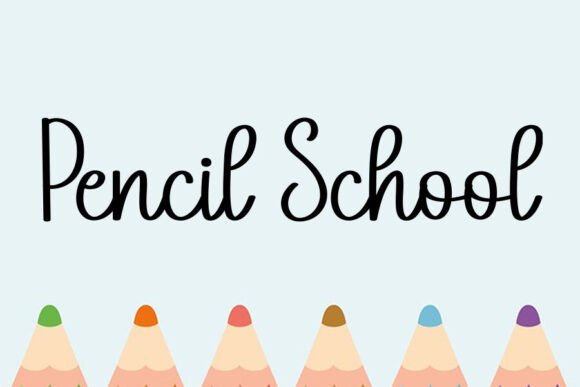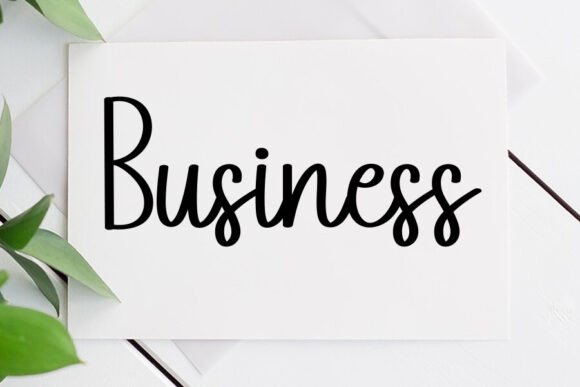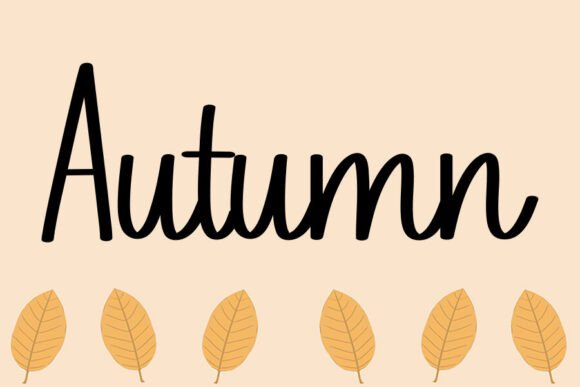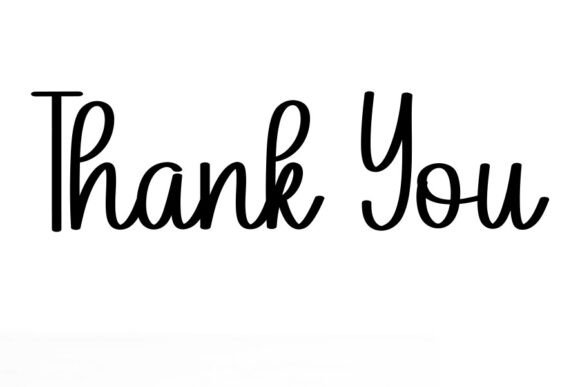
Cowgirls Font: The Sweet and Cursive Handwritten Font for Your Design Needs
Are you looking for a font that can add a touch of elegance and romance to your designs? Look no further than Cowgirls Font, a sweet and cursive handwritten font that is perfect for a variety of design projects. In this article, we’ll take a closer look at the features and benefits of Cowgirls Font, and explore how you can use it to elevate your designs.
What is Cowgirls Font?
Cowgirls Font is a beautiful, handwritten font that is characterized by its flowing and cursive lines. This font is designed to be elegant and refined, yet still casual and approachable. It’s the perfect choice for designers who want to add a touch of sophistication to their work, without sacrificing a personal and human touch.
Features of Cowgirls Font
Cowgirls Font has a number of features that make it an excellent choice for designers. Some of its key features include:
- Sweet and cursive handwritten style: Cowgirls Font has a beautiful, flowing script that is perfect for adding a touch of elegance to your designs.
- Versatile: This font is suitable for a wide range of design projects, from branding and logos to wedding materials and greeting cards.
- Elegant and refined: Cowgirls Font has a sophisticated and polished look that is perfect for designers who want to create high-end designs.
- Casual and approachable: Despite its elegant appearance, Cowgirls Font is still a casual and approachable font that can help you connect with your audience.
Use Cases for Cowgirls Font
Cowgirls Font is a versatile font that can be used for a wide range of design projects. Here are some examples of how you can use this font:
- Branding and logos: Cowgirls Font is perfect for creating elegant and sophisticated brand identities.
- Wedding materials: This font is ideal for wedding invitations, programs, and other materials that require a touch of romance and elegance.
- Greeting cards: Cowgirls Font is a great choice for creating beautiful and heartfelt greeting cards for special occasions.
- Fashion and lookbooks: This font is perfect for fashion designers who want to create elegant and sophisticated lookbooks and marketing materials.
- Marketing and promotion: Cowgirls Font can be used to create eye-catching and effective marketing materials, such as brochures, flyers, and posters.
Tips for Using Cowgirls Font
Here are some tips for getting the most out of Cowgirls Font:
- Use it sparingly: Cowgirls Font is a elegant and refined font, so it’s best to use it sparingly to avoid overwhelming your design.
- Pair it with other fonts: This font pairs well with a variety of other fonts, so don’t be afraid to experiment with different combinations.
- Experiment with different sizes and colors: Cowgirls Font looks great in a variety of sizes and colors, so don’t be afraid to experiment to find the look that works best for your design.
Cowgirls Font is a beautiful and versatile font that is perfect for designers who want to add a touch of elegance and romance to their work. With its sweet and cursive handwritten style, this font is suitable for a wide range of design projects, from branding and logos to wedding materials and greeting cards. By following the tips outlined in this article, you can get the most out of Cowgirls Font and create stunning designs that will leave a lasting impression on your audience.